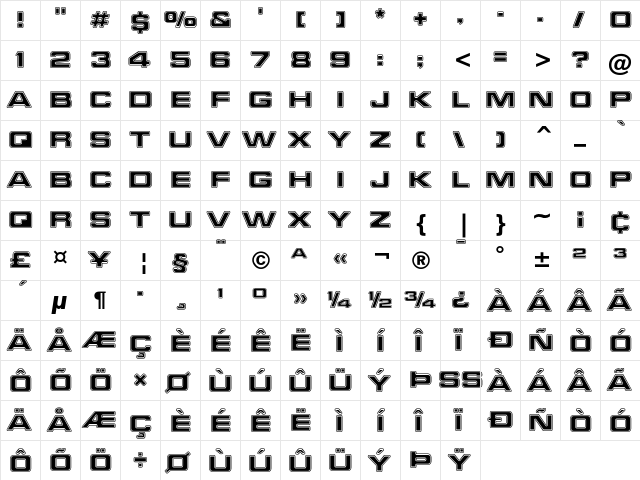
Millenium Bold Extended
Design Context for Millenium Typeface
Millenium takes a measured approach to typography — its balanced proportions and neutral character make it a reliable workhorse for both digital and print work. Its bold stroke weight gives it real presence on the page.